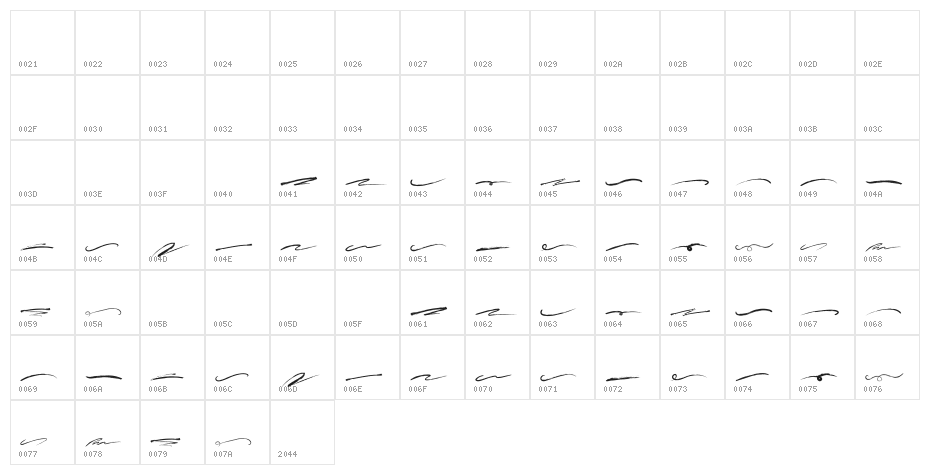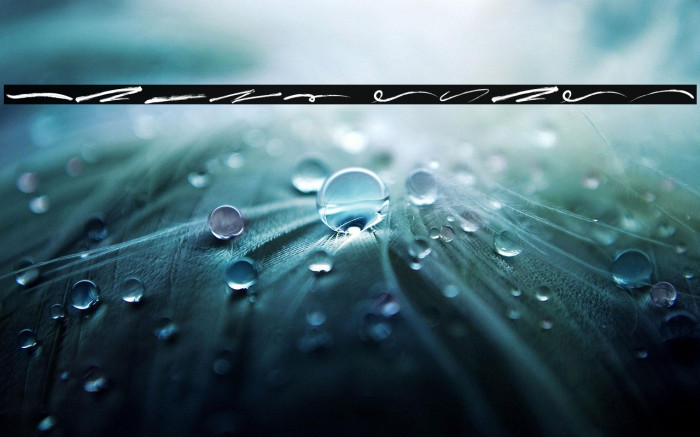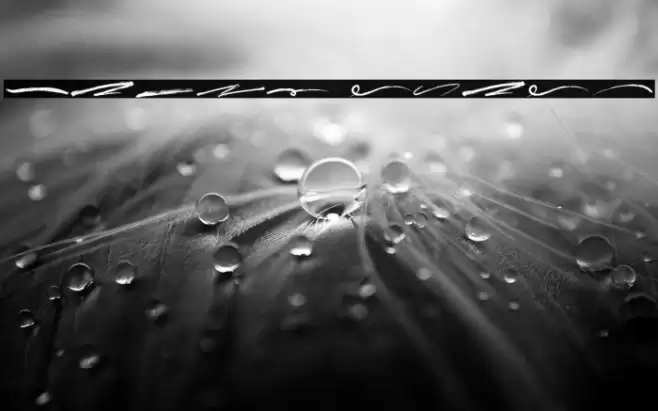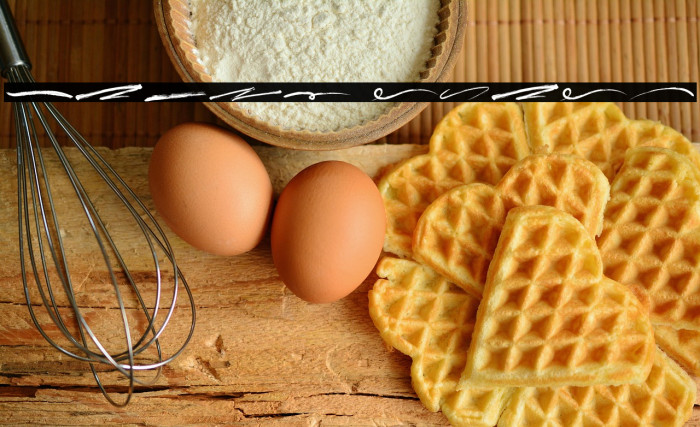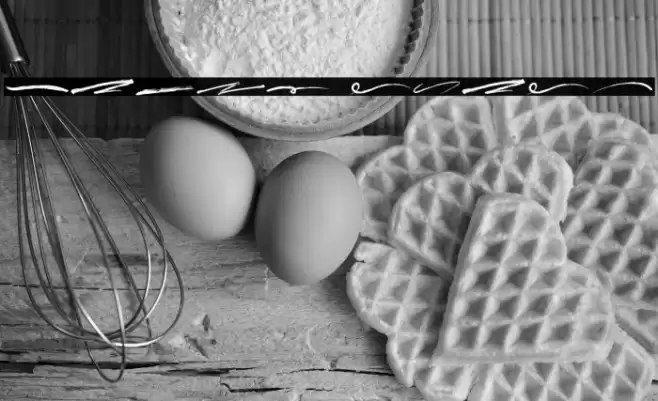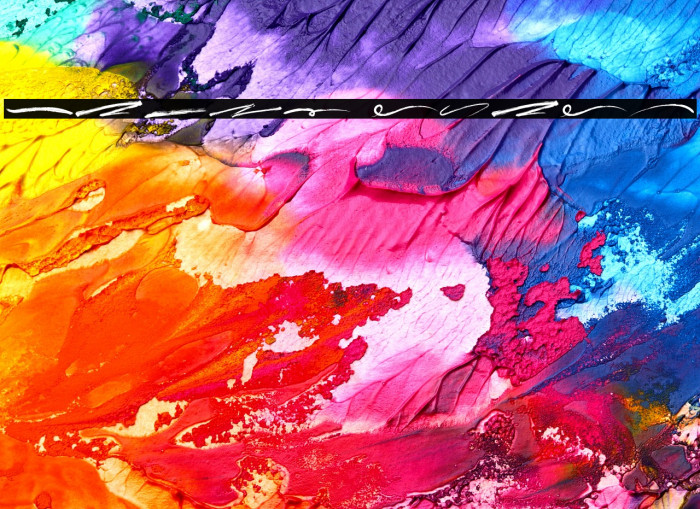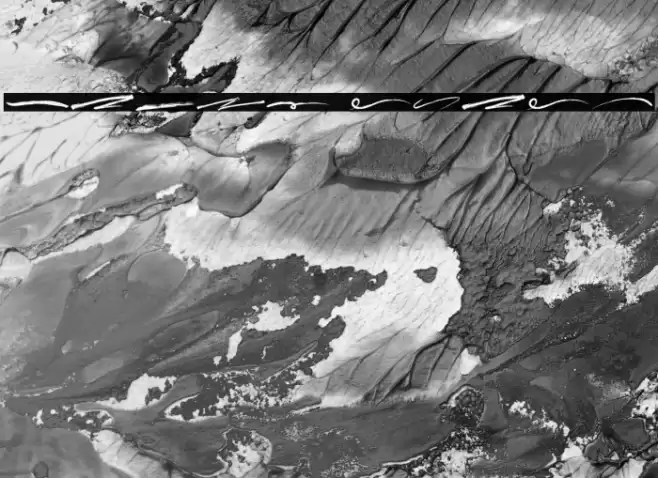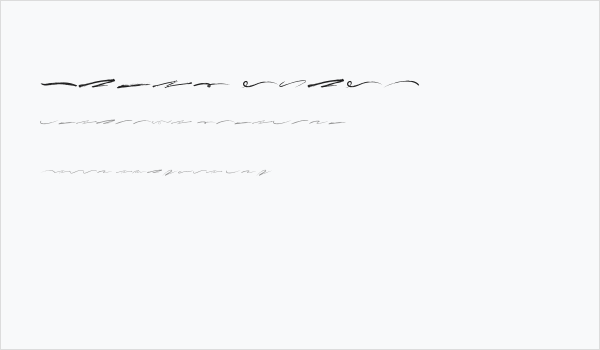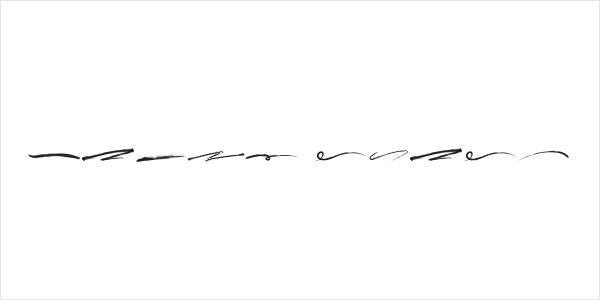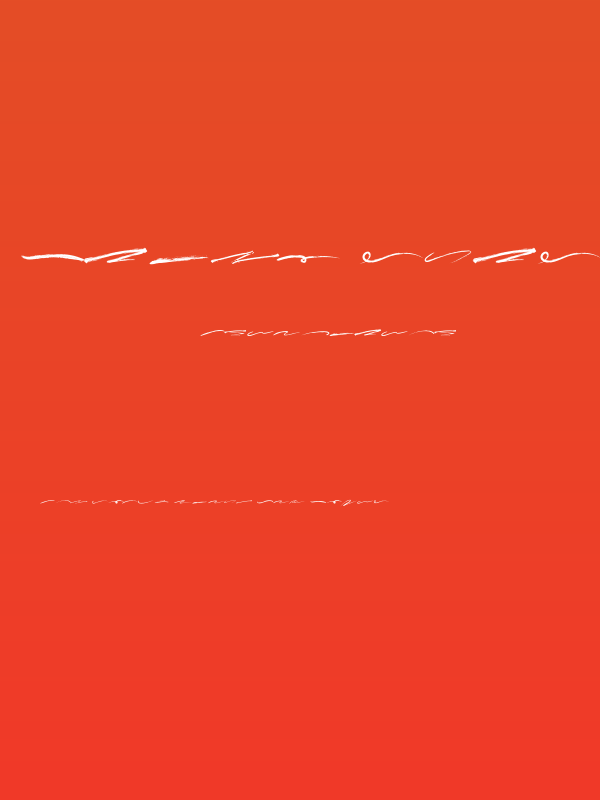
Jared Swash Font
Jared Swash Description
This font features an elegant and flowing script style, characterized by its sweeping curves and delicate strokes. The design is reminiscent of traditional calligraphy, with each letter seamlessly connecting to the next, creating a harmonious and fluid appearance. The characters exhibit a high degree of flourish, adding a sense of sophistication and grace. The overall aesthetic is both artistic and refined, making it suitable for projects that require a touch of elegance and creativity.
| Proposed Projects | Ideal for wedding invitations, greeting cards, elegant branding, and artistic projects. |